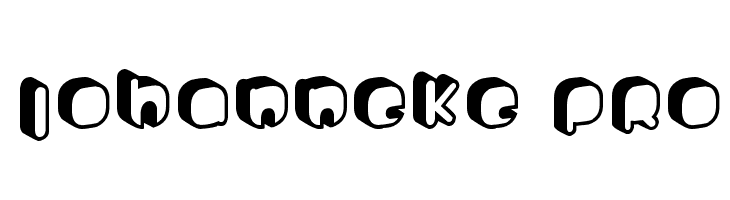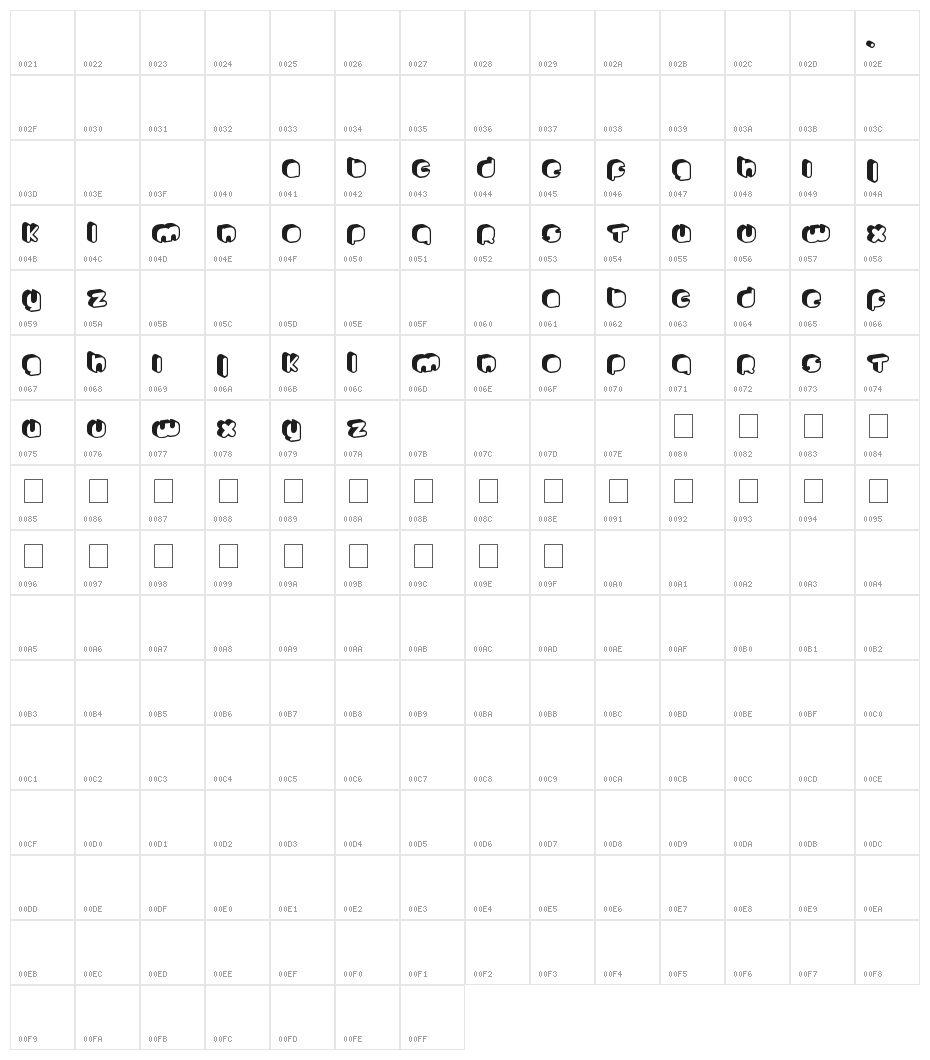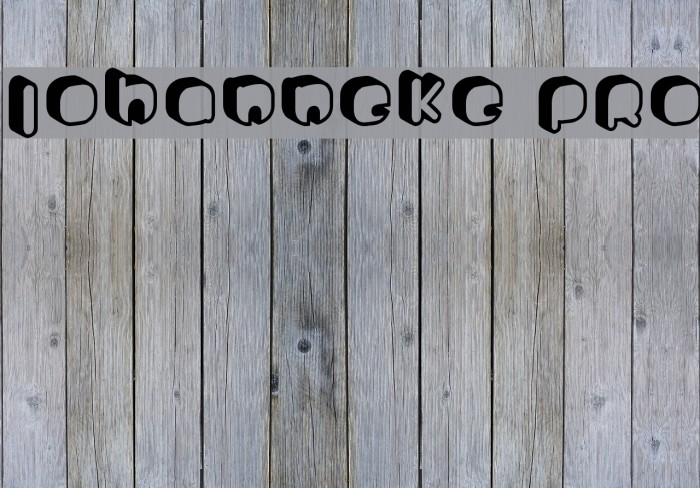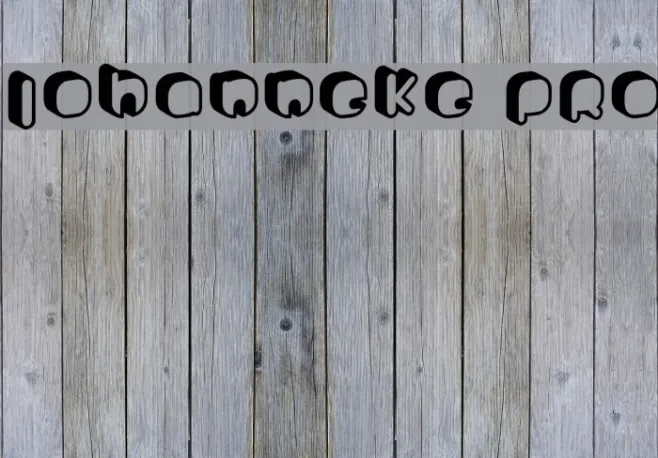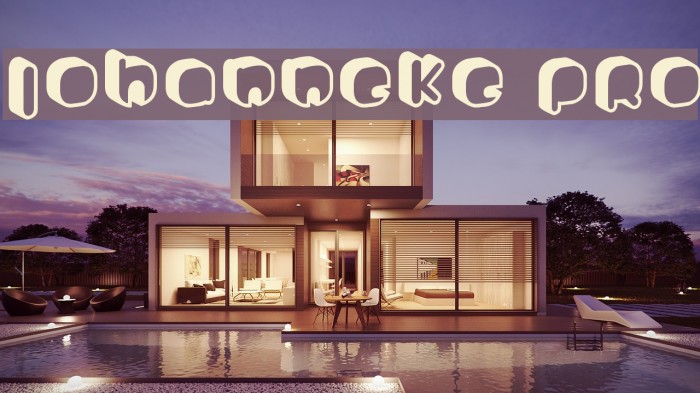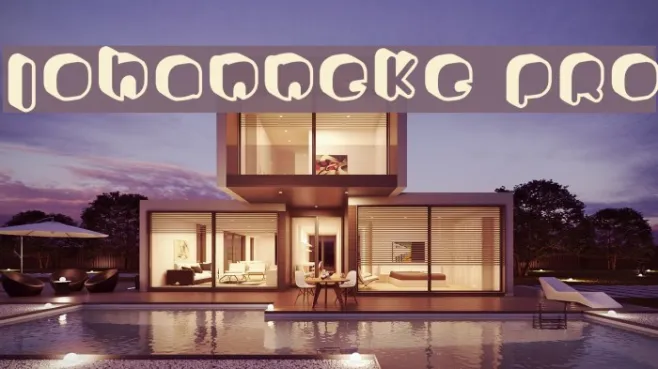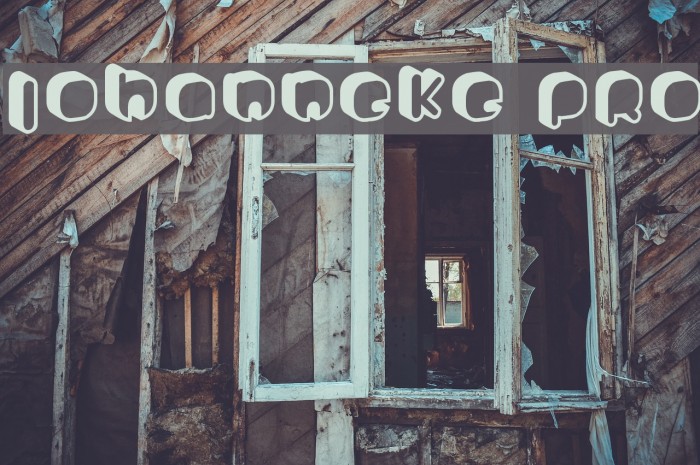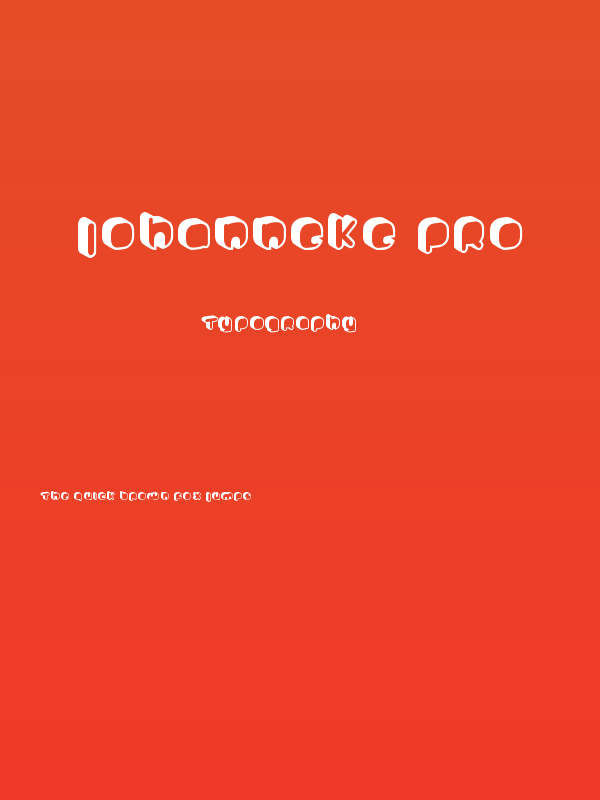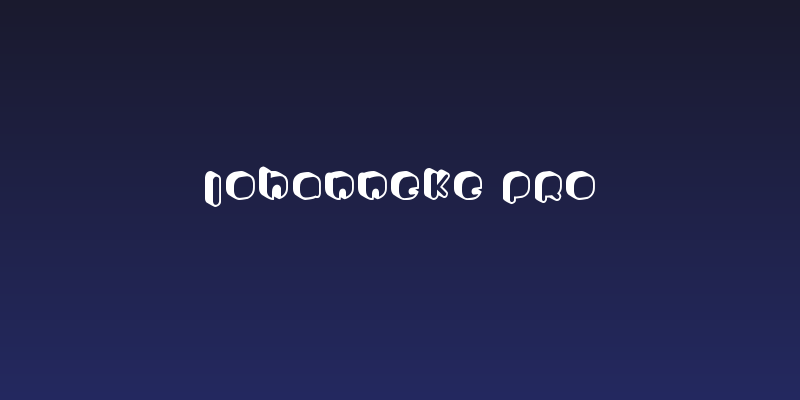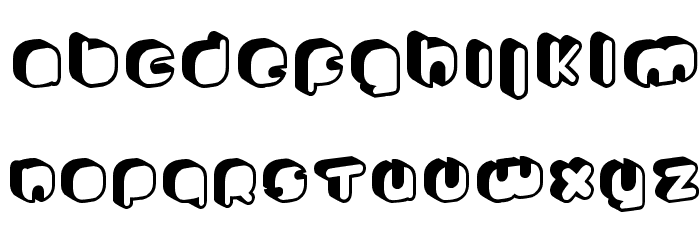
Johanneke Pro Font
Johanneke Pro Description
This font features a playful and bold design with a three-dimensional effect. The letters are rounded and have a shadow-like outline that gives them a floating appearance. Each character is distinct, with a consistent thickness that adds to the font's cohesive look. The style is modern and eye-catching, making it suitable for creative and informal applications. The font's unique structure and bold presence make it stand out, perfect for projects that require a fun and engaging typeface.
| Proposed Projects | Ideal for children's books, playful branding, posters, and creative digital content. |